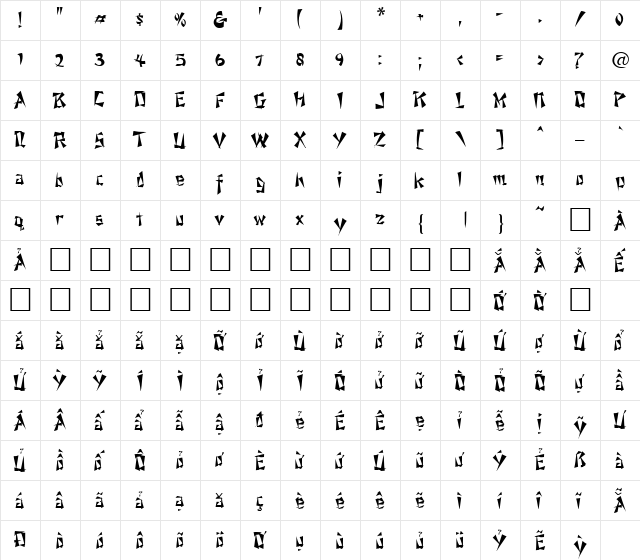
VPS Ca Mau Normal
Design Context for VPS Ca Mau Typeface
VPS Ca Mau is a composed and adaptable typeface that performs quietly and consistently across a wide range of design contexts.